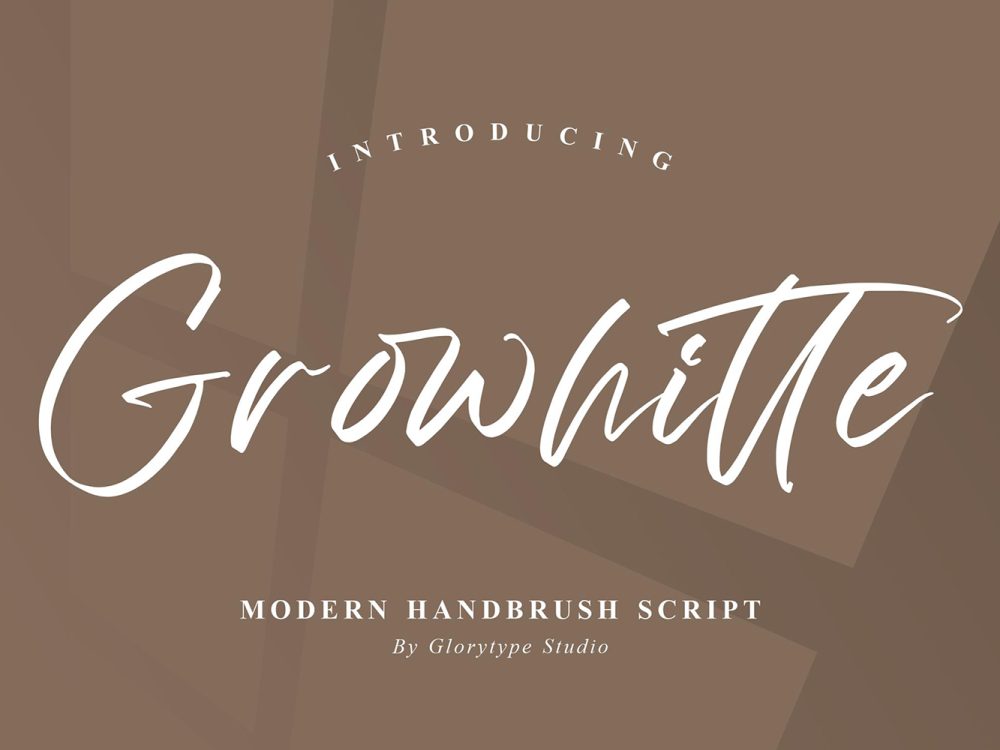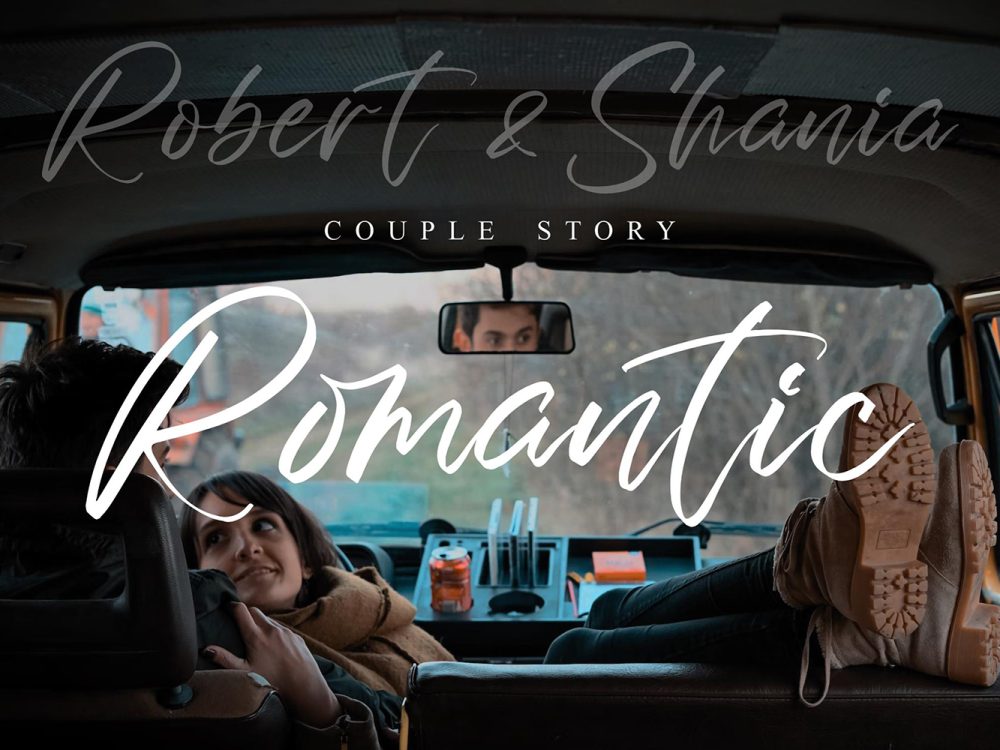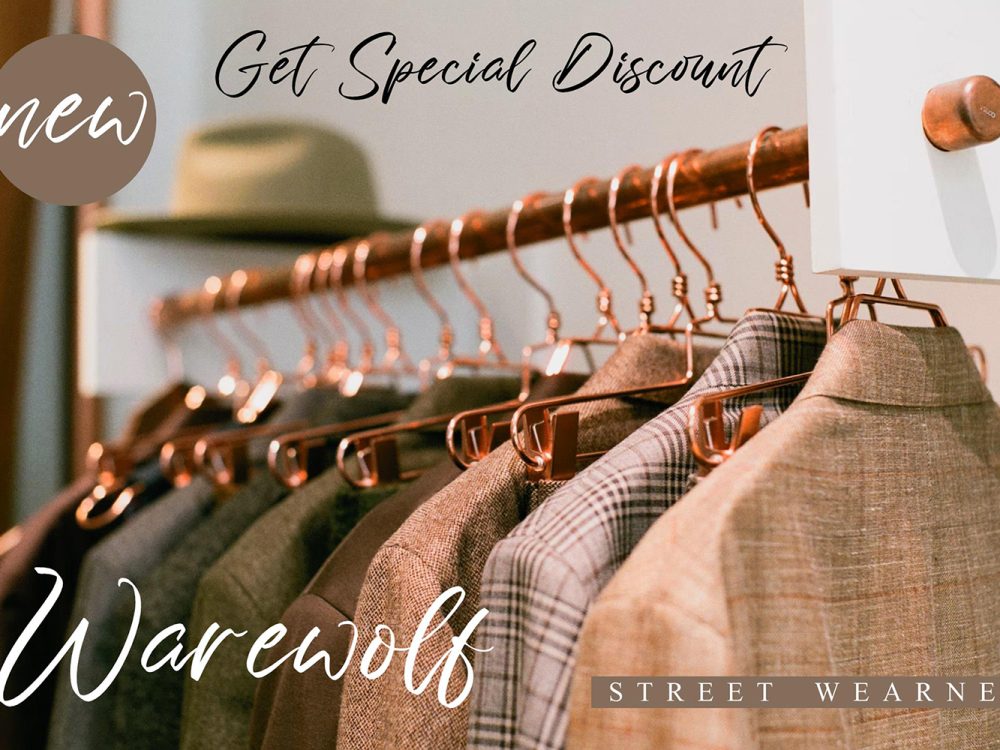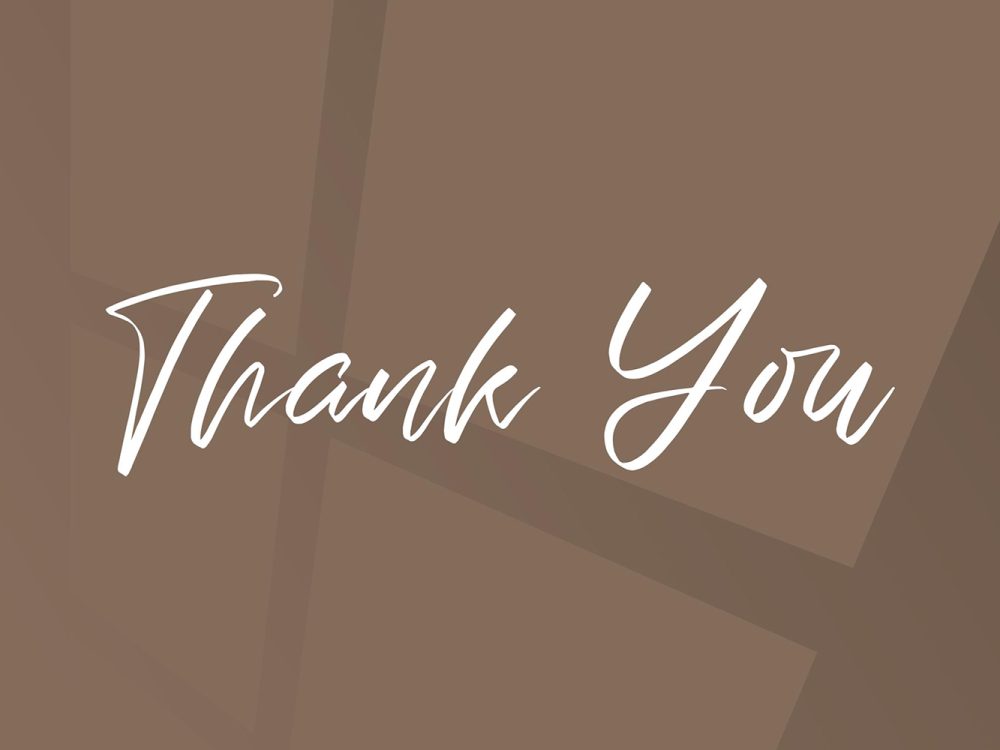
Unleash the creative potential with Growhitte Free Font, a contemporary handbrush script font. Versatile and captivating, this font complements various projects, from logos and branding to homeware designs, product packaging, mugs, quotes, posters, shopping bags, t-shirts, book covers, name cards, invitation cards, greeting cards, labels, photography, watermarks, special events, and more. Infuse a beautiful script taste into all your lovely projects with Growhitte. If you like it don’t forget to check out the full version.